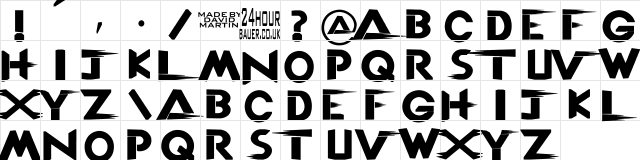
TNA LOGO Regular
Design Context for TNA LOGO Typeface
TNA LOGO is a composed and adaptable typeface that performs quietly and consistently across a wide range of design contexts.